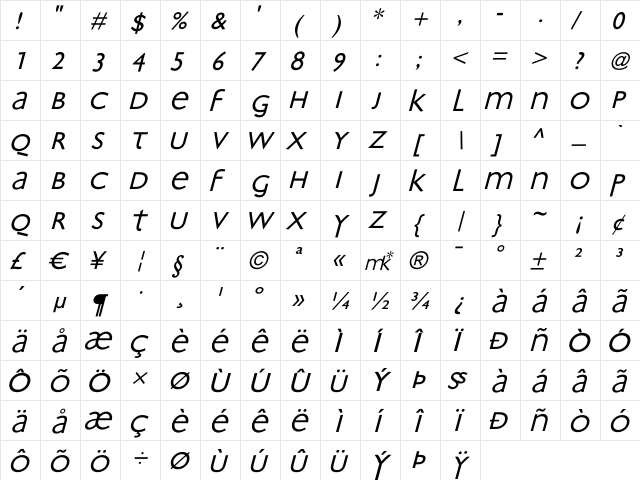
Bradbury-Oblique Regular
Design Context for Bradbury-Oblique Typeface
Bradbury-Oblique is a composed and adaptable typeface that performs quietly and consistently across a wide range of design contexts. The dynamic lean of this cut emphasises speed and emphasis in any layout.
Pro Tip: Use Bradbury-Oblique for emphasis, pull quotes, and subheadings where its slanted energy can add rhythm to the layout.